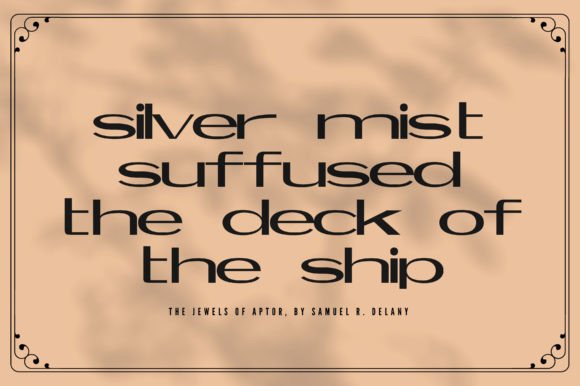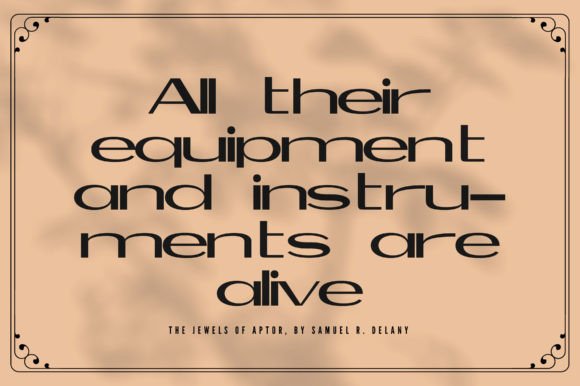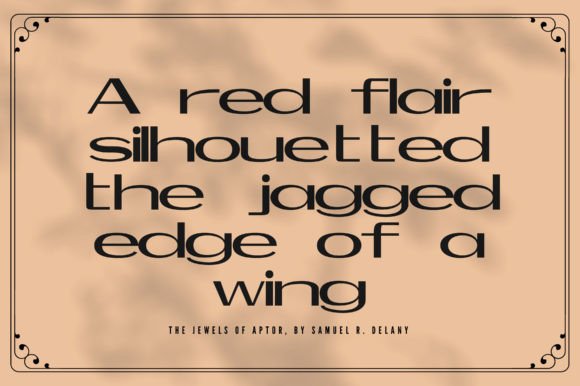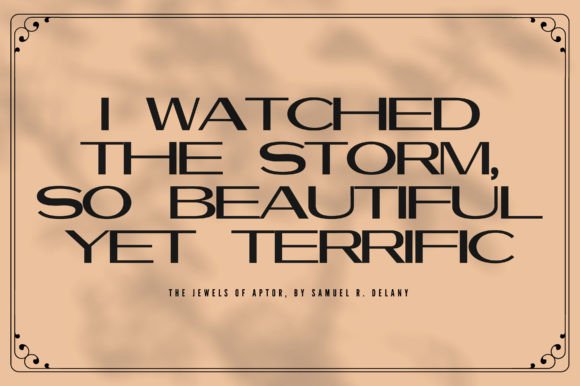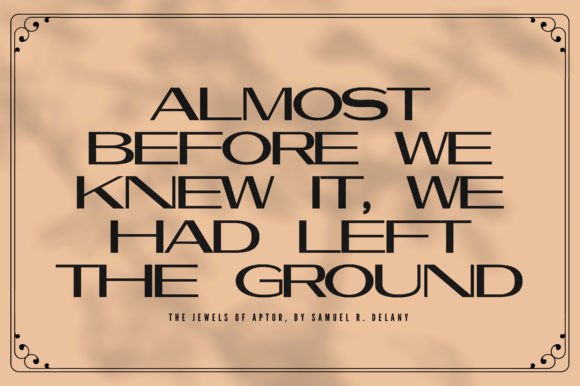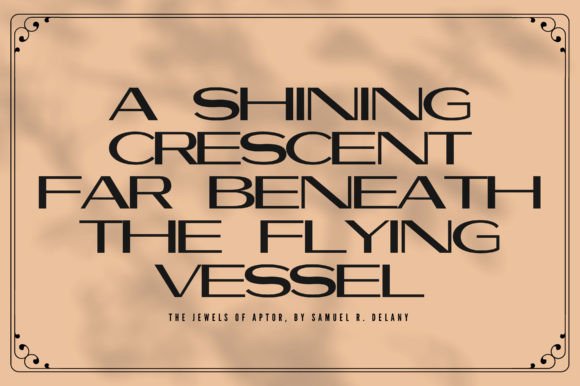
Introducing Blierid Font: Elevate Your Designs with Sophistication and Chic
In the world of typography, a font can make or break a design. For designers and crafters seeking to create elegant and high-end visuals, Blierid Font is the perfect solution. This sophisticated, chic sans serif font is crafted with precision and style in mind, making it an excellent choice for those looking to elevate their designs to new heights.
The Perfect Blend of Style and Sophistication
Blierid Font boasts a sleek and minimalistic design that exudes luxury and refinement. Its clean lines and smooth curves add a touch of sophistication to any project, giving it a modern yet timeless feel. This font is perfect for designers who want to create visually stunning and high-end designs that leave a lasting impression.
Ideal for Fashion Magazines, Luxury Brands, and High-End Product Packaging
Blierid Font is specifically designed for elegant and high-end designs, making it an excellent choice for:
- Fashion magazines: Add a touch of glamour and sophistication to your fashion editorials with Blierid Font.
- Luxury brands: Elevate your brand’s visual identity with a font that exudes luxury and refinement.
- High-end product packaging: Make a statement with Blierid Font and give your products a premium feel.
Key Features of Blierid Font
So, what sets Blierid Font apart from other fonts? Here are some of its key features:
- Sleek and minimalistic design: Blierid Font boasts a clean and simple design that exudes sophistication and elegance.
- Clean lines and smooth curves: The font’s clean lines and smooth curves add a touch of refinement to any project.
- Modern yet timeless feel: Blierid Font has a modern feel that is also timeless, making it perfect for designs that need to stand the test of time.
- High-end and elegant: This font is specifically designed for high-end and elegant designs, making it perfect for luxury brands and fashion magazines.
Why Choose Blierid Font?
With so many fonts available, why choose Blierid Font? Here are just a few reasons why designers and crafters are falling in love with this sophisticated font:
- Elevate your designs: Blierid Font is designed to elevate your designs and give them a high-end feel.
- Perfect for branding and marketing: This font is perfect for creating a strong brand identity and marketing materials that exude luxury and sophistication.
- Easy to read and versatile: Blierid Font is easy to read and versatile, making it perfect for a wide range of design projects.
Tips for Using Blierid Font
To get the most out of Blierid Font, here are a few tips:
- Use it sparingly: Blierid Font is a statement font, so use it sparingly to make a maximum impact.
- Pair it with other fonts: Experiment with pairing Blierid Font with other fonts to create a unique and visually stunning design.
- Experiment with different sizes and colors: Play around with different sizes and colors to find the perfect combination for your design.
In conclusion, Blierid Font is a sophisticated, chic sans serif font that is perfect for designers and crafters seeking to create elegant and high-end designs. With its sleek and minimalistic design, clean lines, and smooth curves, this font is sure to elevate your designs to new heights. Whether you’re working on a fashion magazine, luxury brand, or high-end product packaging, Blierid Font is the perfect choice.